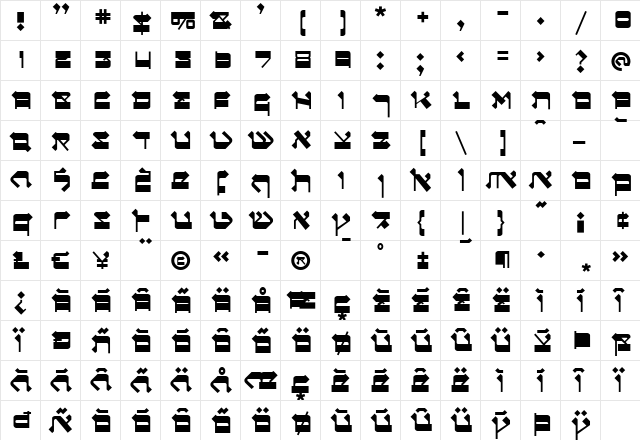
Circumcision Bold
Design Context for Circumcision Typeface
Circumcision offers clean, dependable letterforms without strong stylistic allegiance, making it a practical choice for designers who need flexibility. The heavy weight commands attention and anchors typographic hierarchies.
Pro Tip: Use Circumcision in both headline and body roles to test its range before committing to a single application.